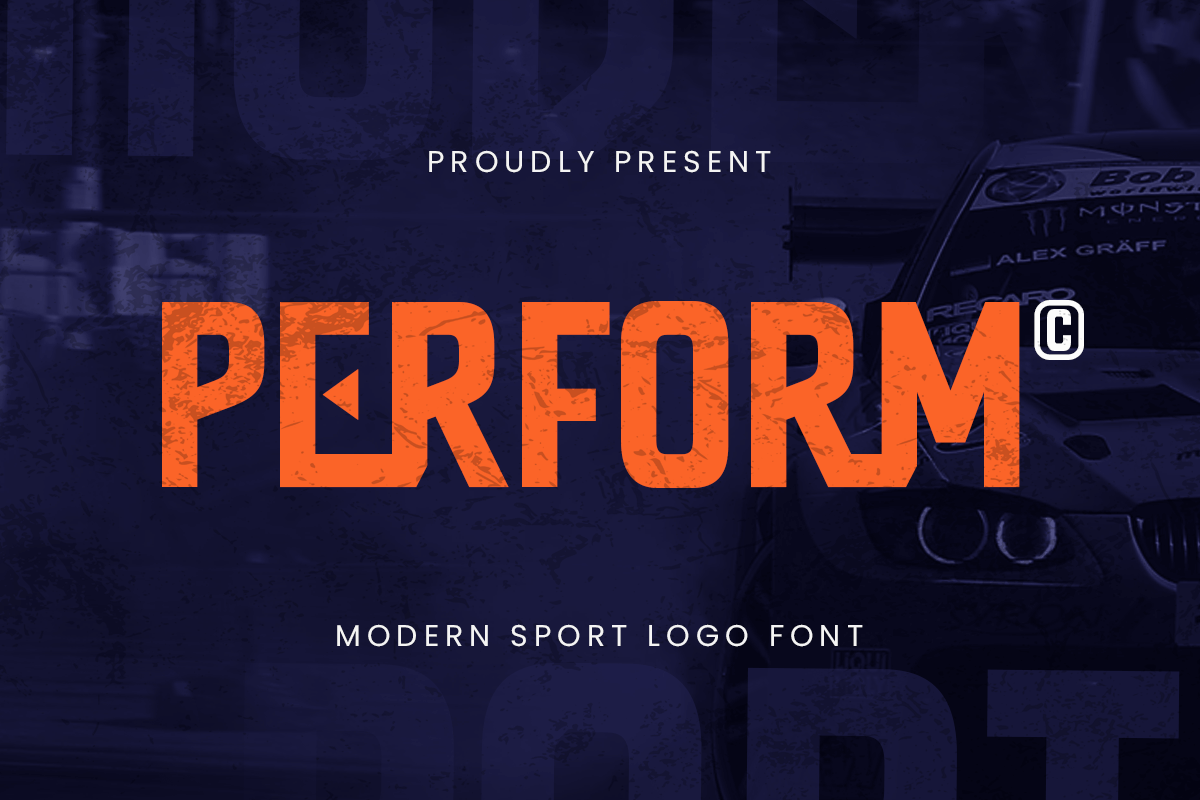
Perform
-Modern Sport Logo FontPerform - Modern Sport Logo Font
Perform is a modern sport logo font built for movement, energy, and bold visibility. With its sharp edges, compact build, and action-ready presence, Perform is ideal for sports team branding, gaming streams, fitness packaging, and event posters.
Its confident letterforms are designed to convey strength and speed, making your typography feel competitive and powerful. Whether for merchandise, tournament logos, or digital platforms, Perform brings instant impact and athletic identity.
Take your visuals to the next level with Perform—a typeface that lives up to its name in every design arena.
Perform – Modern Sport Logo Font Features
Bold and dynamic athletic design
Alternate and Ligature Characters Ready
Perfect for sports branding, esports, and action visuals
Uppercase and lowercase letters
OpenType features for performance customization
Get ready to dominate your design game with Perform — the modern font for champions.